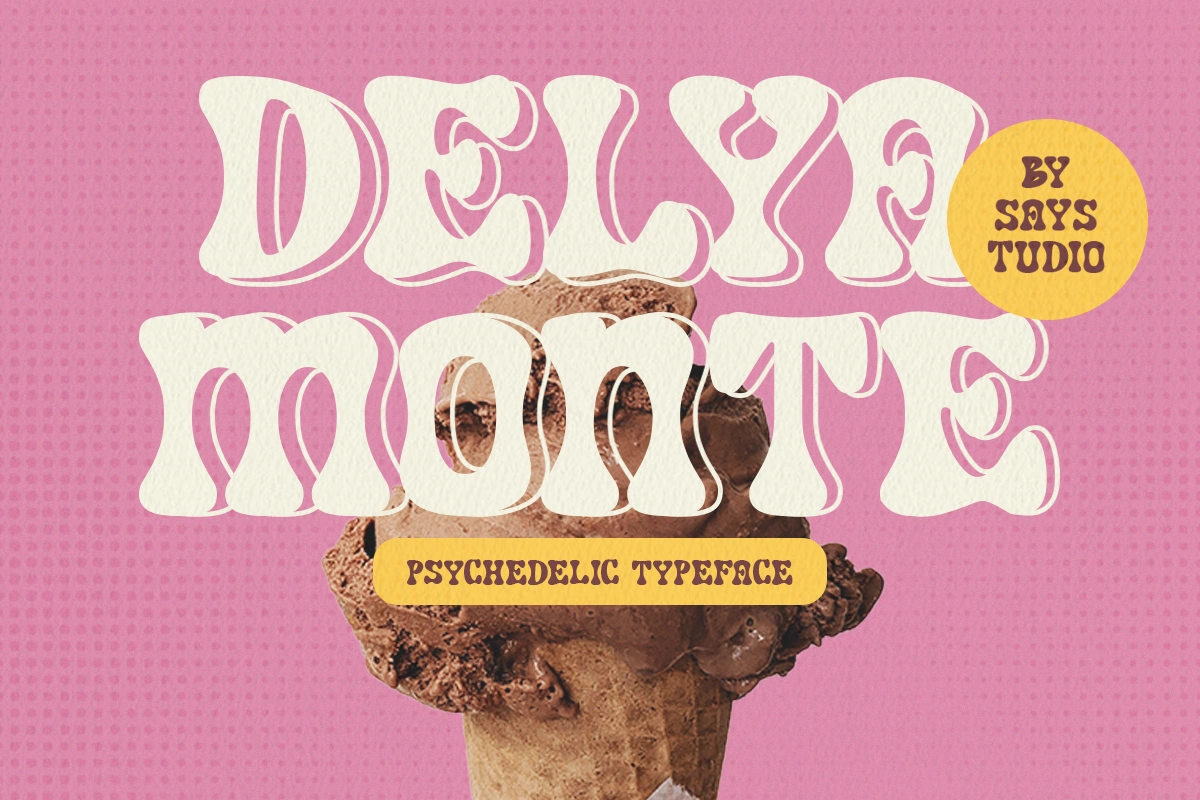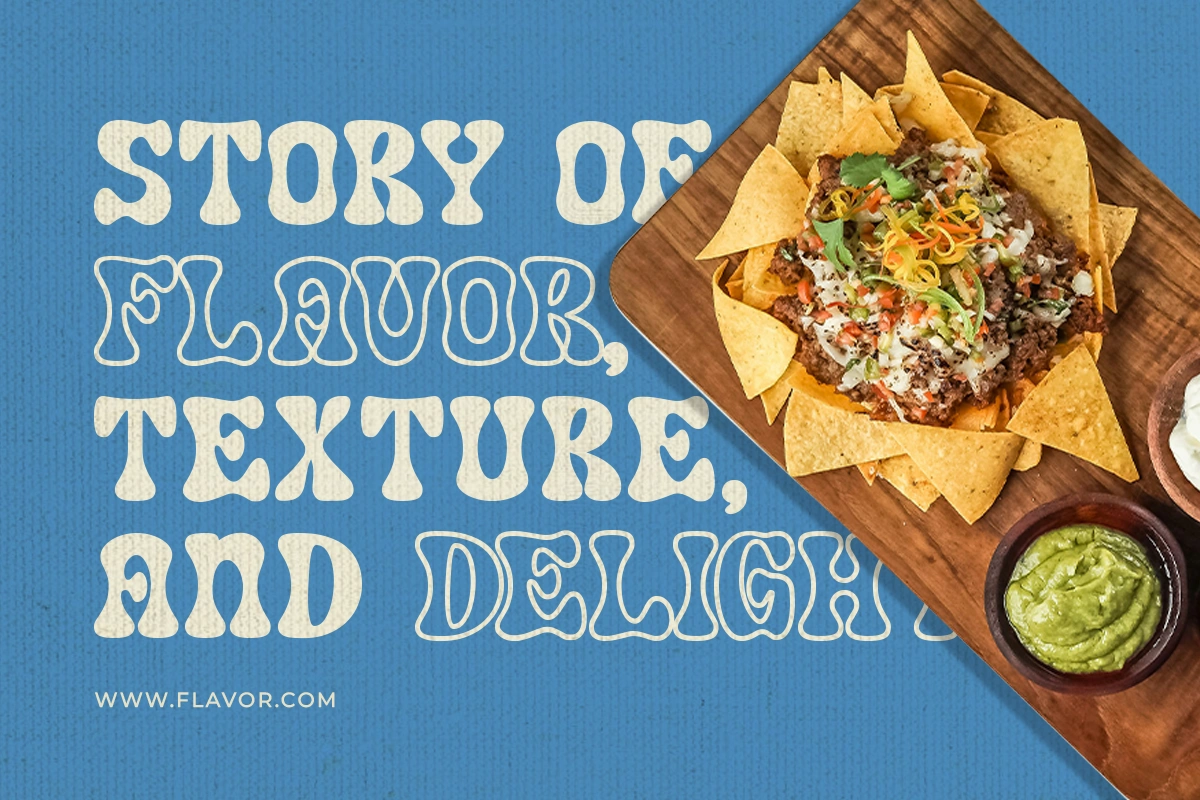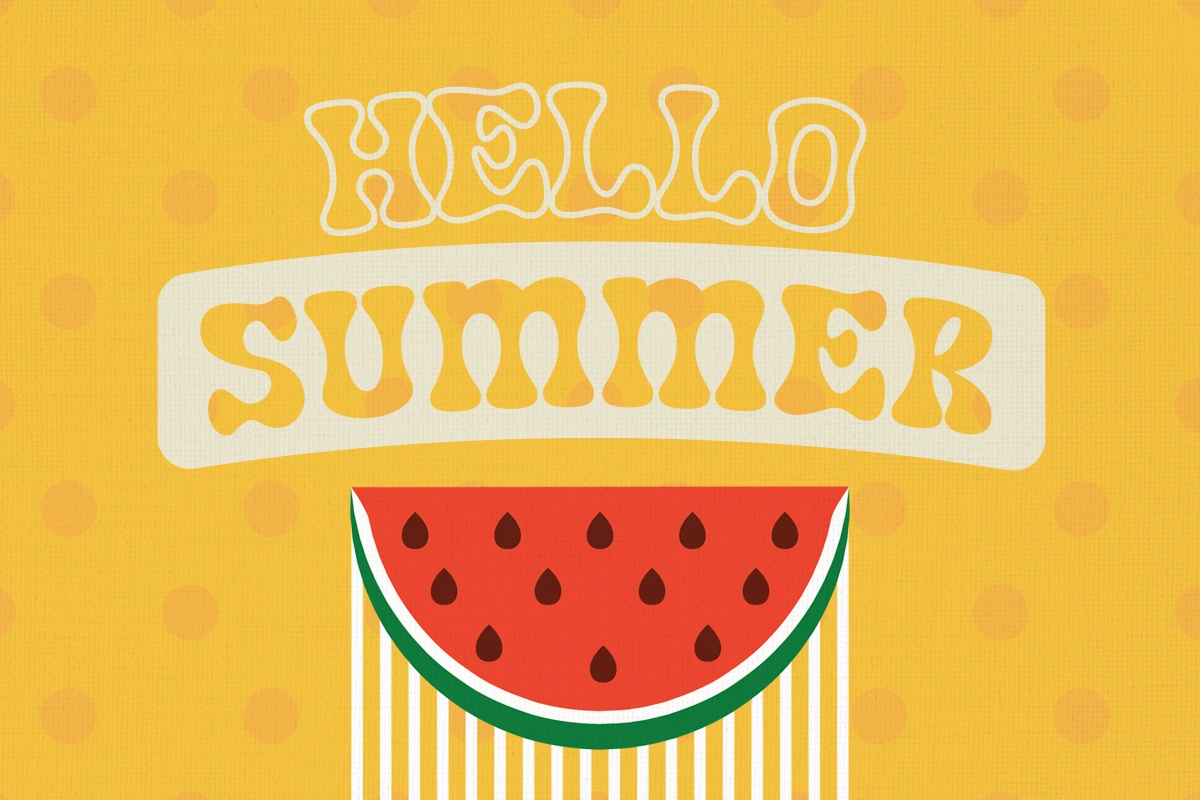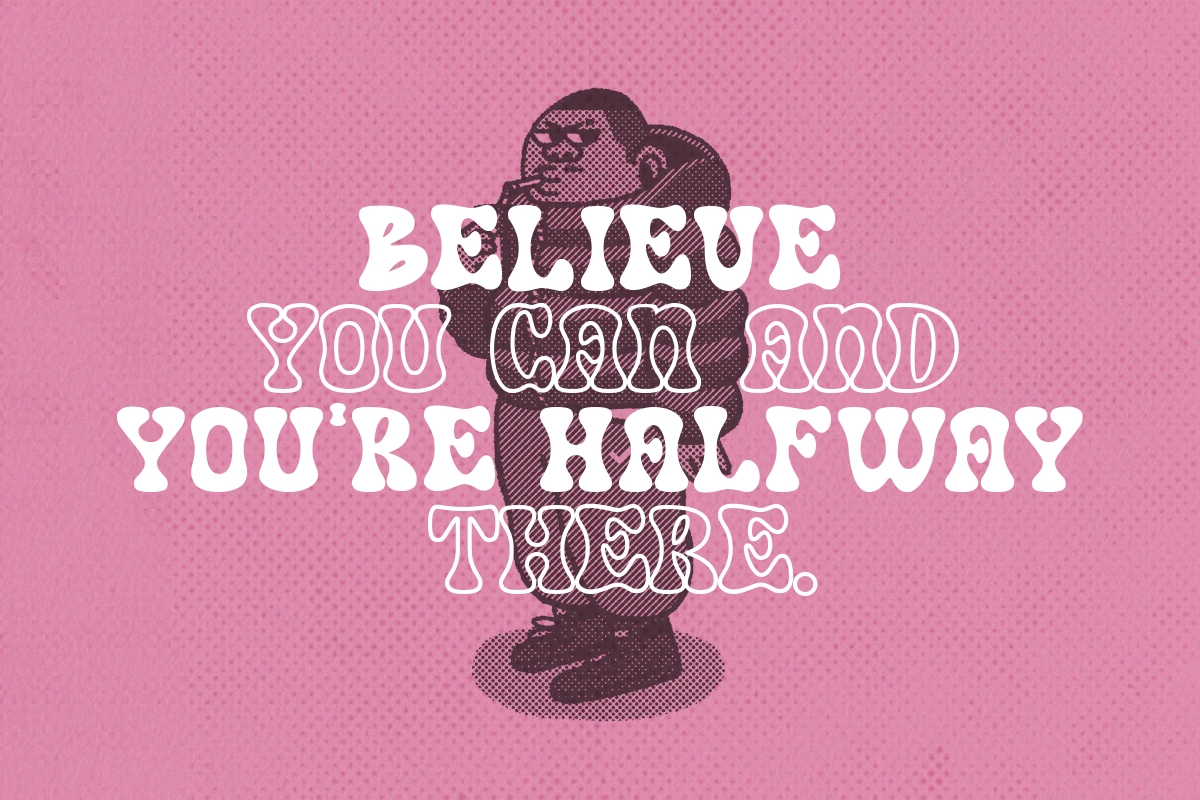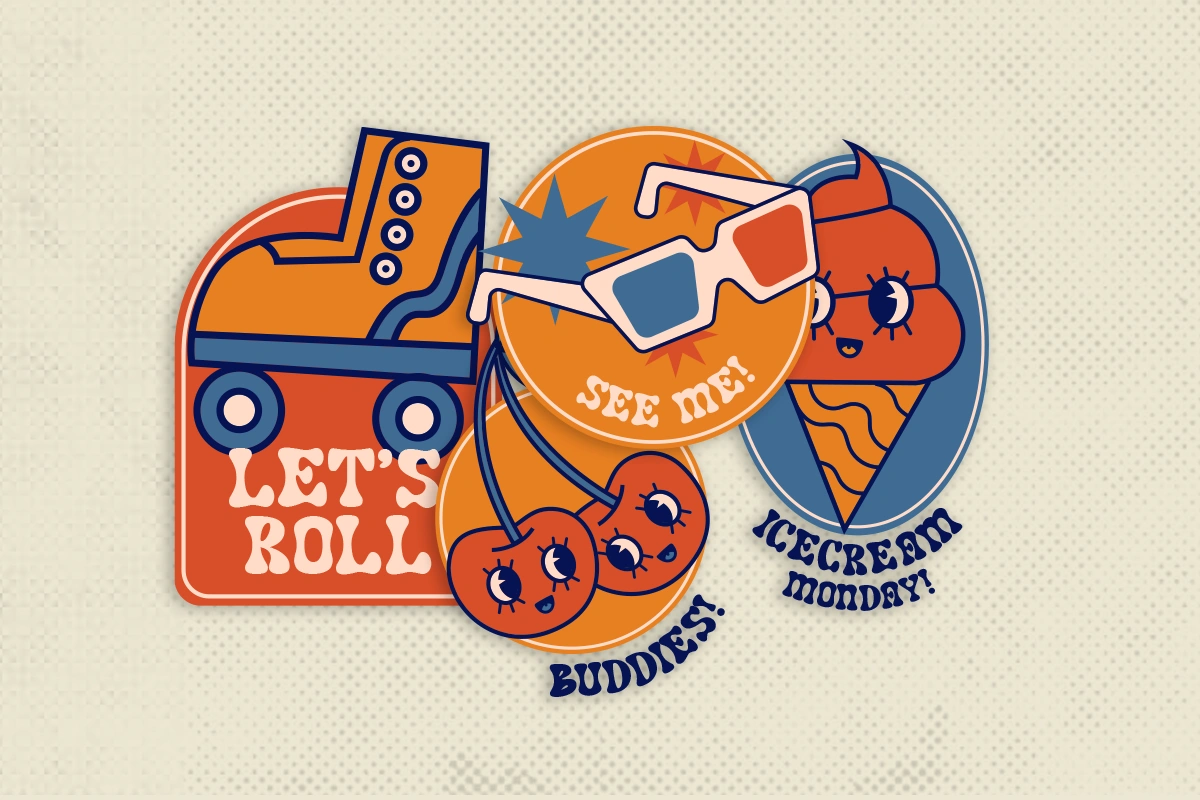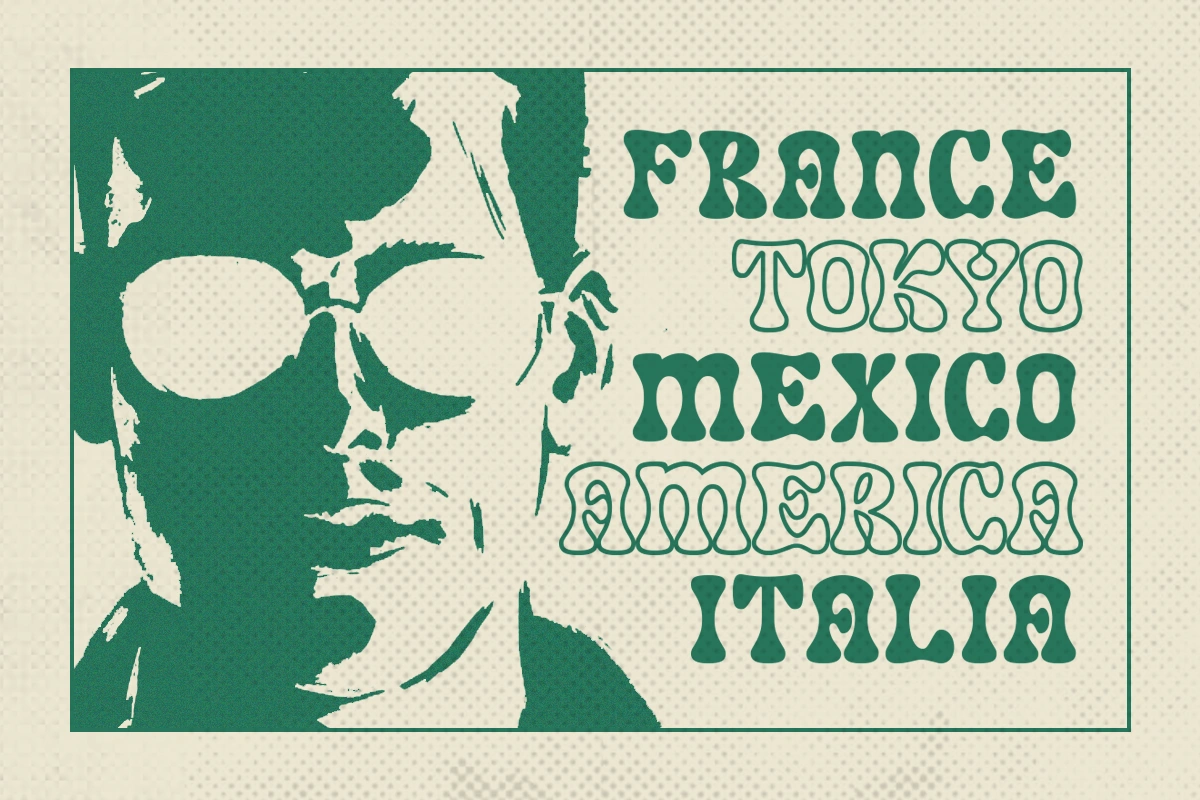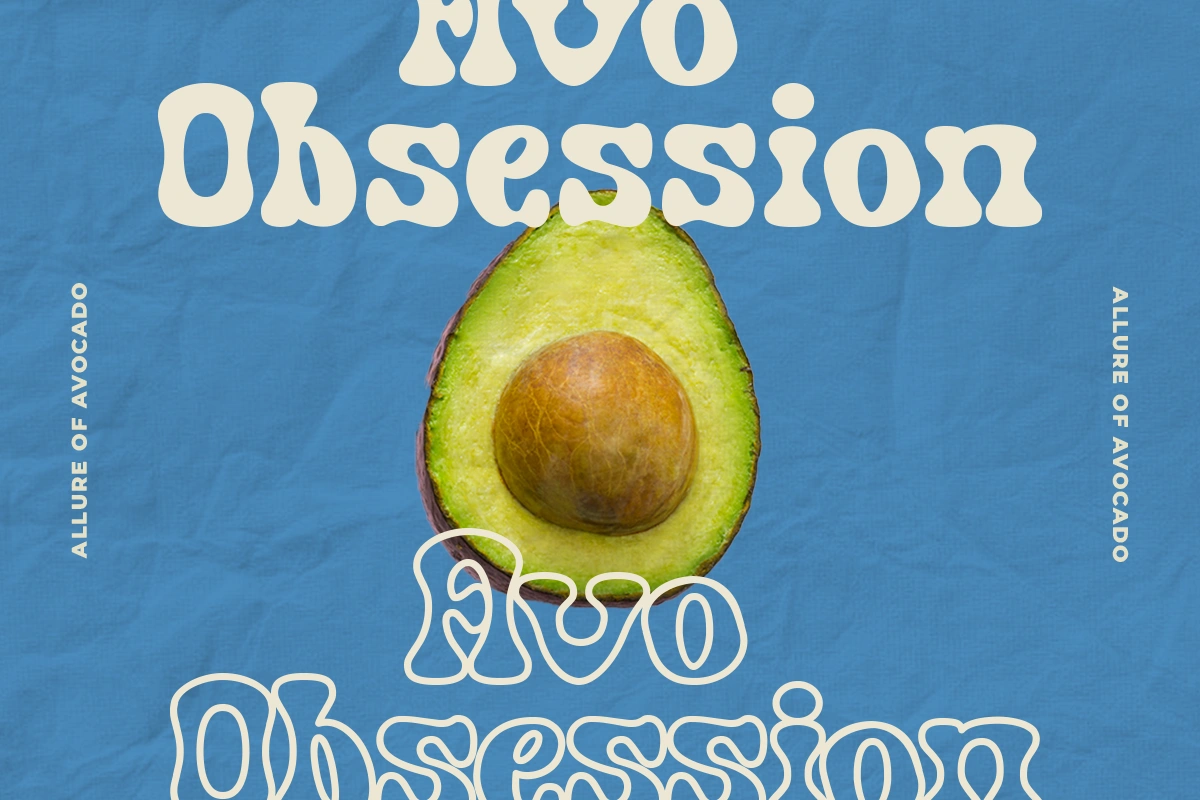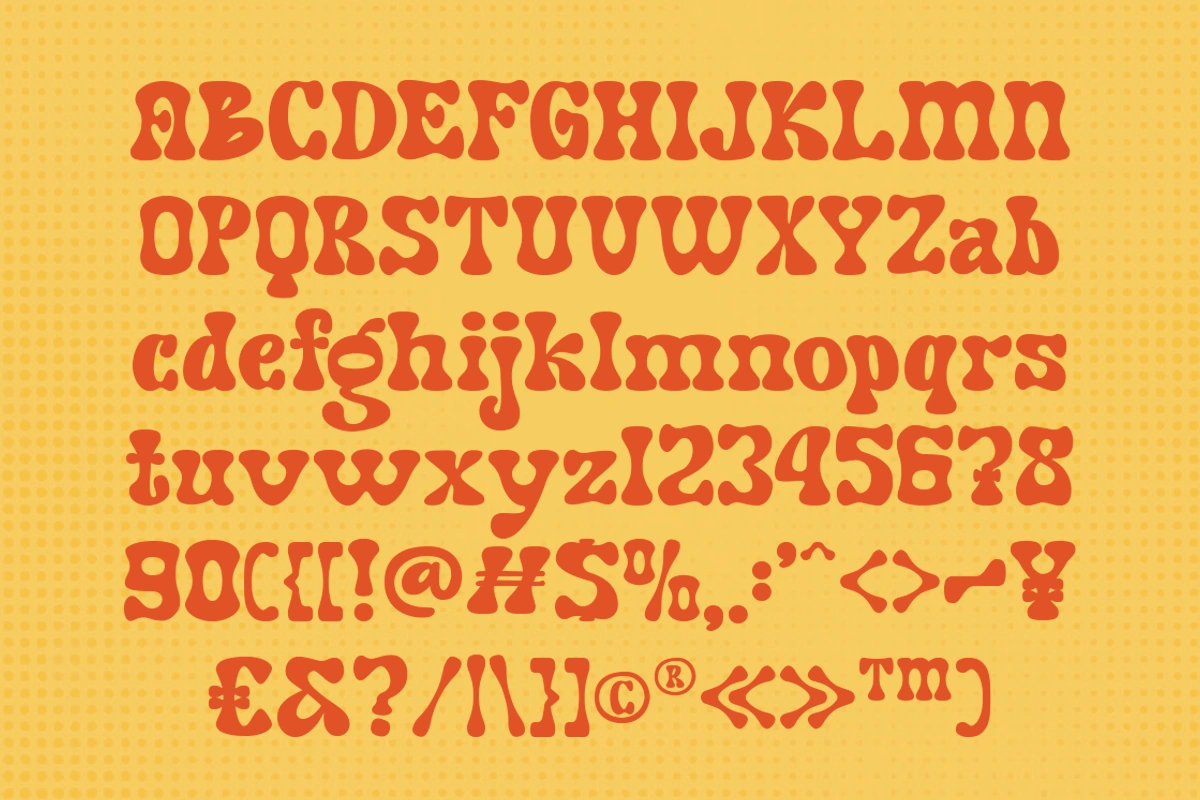
Delya Monte-Display Font
Delya Monte is a psychedelic typeface with groovy style Great for trippy band posters, logos, invitations, groovy poster, an album cover, or revamping your branding and anything that needs a flowing funky vibe. Delya Monte is equipped with an outline style to suit your needs if you want to display an outline font in a psychedelic style.
- Outline Version
- Uppercase, Lowercase, numbers, punctuation